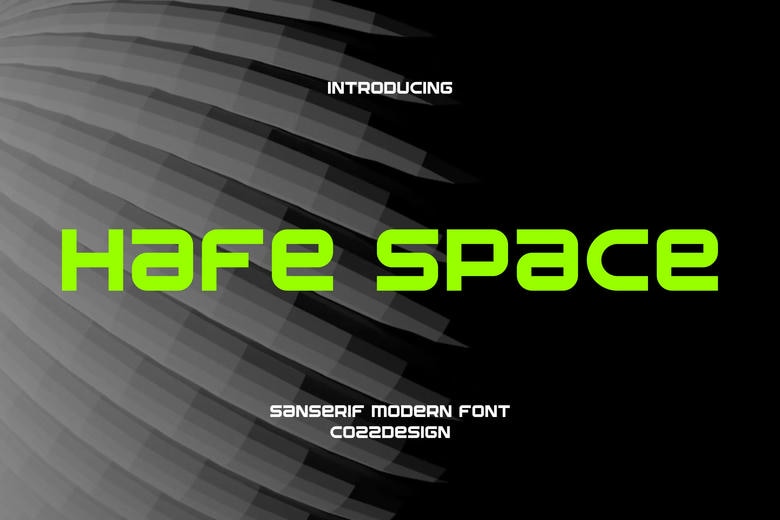
Hafespace Font
HafeSpace modern is an audacious and unique sans serif font that is ideal for branding tasks, including logos, sports themes, and beyond. It differentiates itself among assorted applications.
Hafespace Sans Serif Font